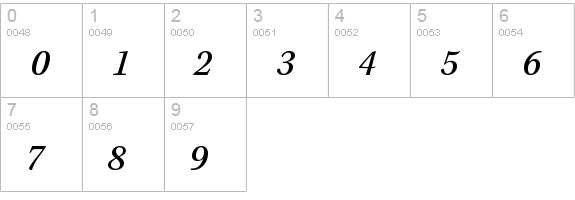
Kepler Std Semicondensed Italic Caption Font Details
Kepler Std Semicondensed Italic Caption is a distinctive, italic variant in the Kepler typeface family \xE2\x80\x94 well suited to design and typography projects.
Kepler Std Semicondensed Italic Caption is a visually appealing and versatile font that will add a touch of elegance and sophistication to any design project. With its sleek and slender appearance, this font is perfect for captions, subheadings, and other texts that require a compact yet stylish look. The italicized form of Kepler Std Semicondensed Italic Caption adds a sense of movement and dynamism, making it an excellent choice for conveying a sense of action or energy in your designs. Whether you are creating a magazine layout, a website, or a branding project, this font will effortlessly elevate your visual communication. What makes Kepler Std Semicondensed Italic Caption even more impressive is the fact that it is freely available to download at FontsMarket.com. This means that you can easily access and utilize this font without any financial constraints, making it a valuable asset for both personal and commercial projects. With its wide range of weights and styles, Kepler Std Semicondensed Italic Caption offers endless possibilities for creative expression. Whether you want to create a bold and impactful headline or a subtle and refined caption, this font has got you covered. So why wait? Download Kepler Std Semicondensed Italic Caption today from FontsMarket.com and unleash your creativity with this stunning and versatile typeface.